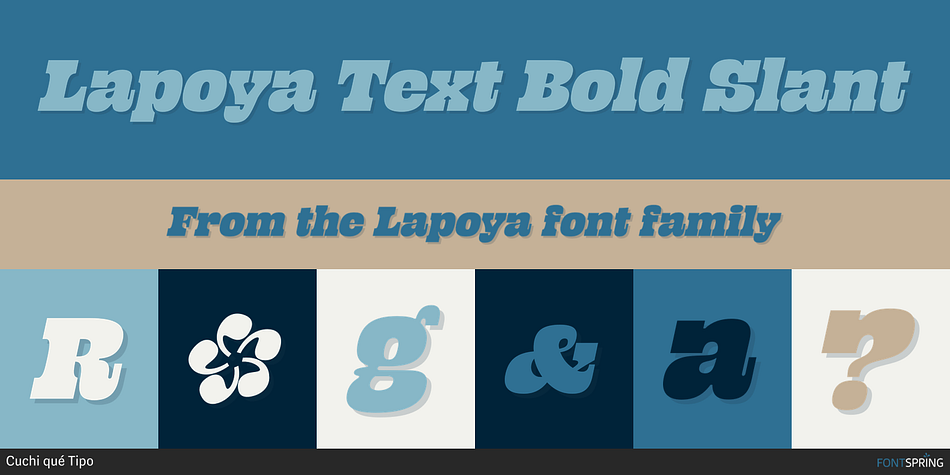
Lapoya Text Bold Slant
Designed by Carlos Campos, Lapoya is a display slab, retro and western font family. This typeface has thirty-six styles and was published by Cuchi qué Tipo.
“LAPOYA” (meaning in english “the coolest”) is a large slab serif typeface family, with a certain Italian inverted contrast touch. Specially designed for advertising big shows and commerces, Lapoya has 36 variables and four axes, including a text and decorative versions, where the drawing and width of its counterforms vary. It also has icons that remember the old aesthetics of wood types from the early 20th century, and more than 400 characters with a multitude of signs and ligatures, that make Lapoya ideal for up to 89 languages.
It is clearly inspired by the large wood types designed for posters, advertisements and newspapers. Since they were introduced in the 19th century, slab serifs have become extremely popular. In fact, serifs are often enlarged, not so much to look like beautiful or balanced letters, but to be more graphic and visual powerful than others. Furthermore, in the case of this typeface, this idea has been applied not only to capital letters, but also to the lowercase, numbers and signs of all kinds.
“That’s why this typeface is LAPOYA!”
Designed by Carlos Campos in 2023.